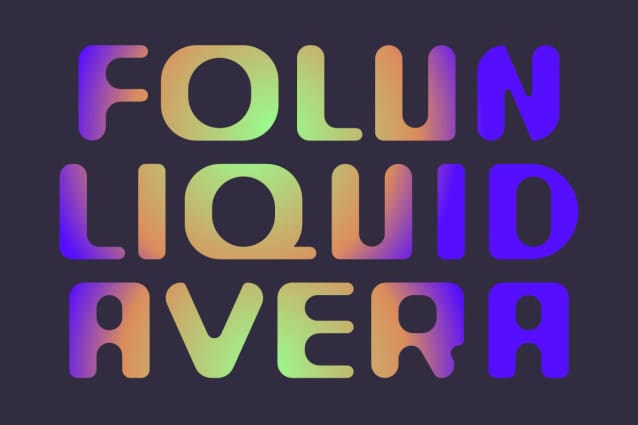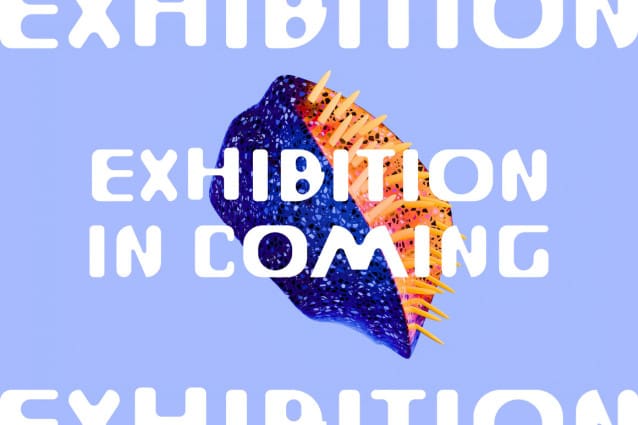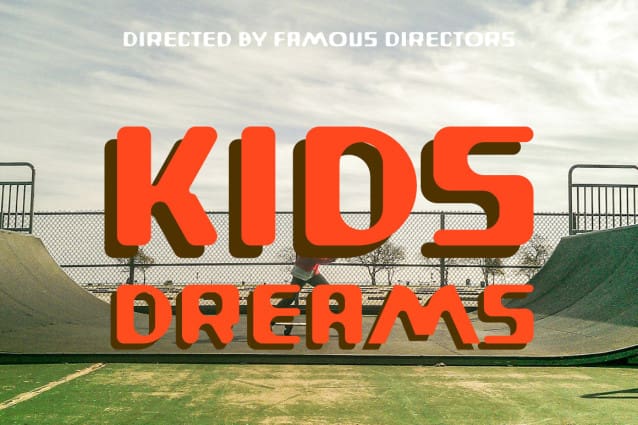
Warriot Round Font
Warriot Round Font, Perfectly fit for branding, logo, wedding things, greeting cards, fashion, lookbook, marketing promotion, anytime you want to look fancy elegant but still casual.